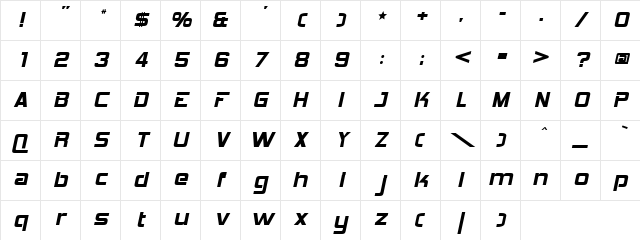
Hemi Head 426 Regular
Design Context for Hemi Head 426
Hemi Head 426 is a composed and adaptable typeface that performs quietly and consistently across a wide range of design contexts.
Pro Tip: Use Hemi Head 426 in both headline and body roles to test its range before committing to a single application.